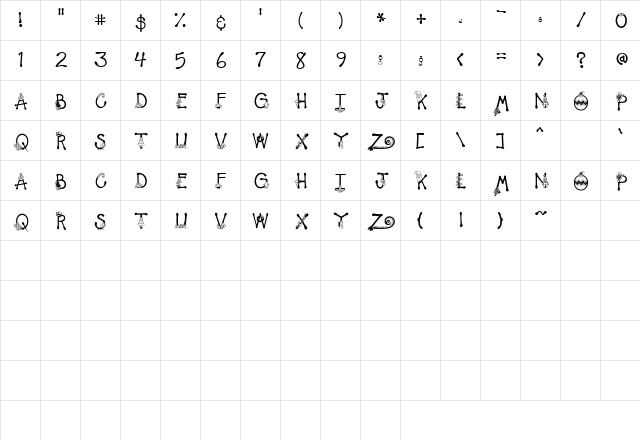
CK Christmas Memories Regular
Design Context for CK Christmas Memories Typeface
CK Christmas Memories is a composed and adaptable typeface that performs quietly and consistently across a wide range of design contexts.